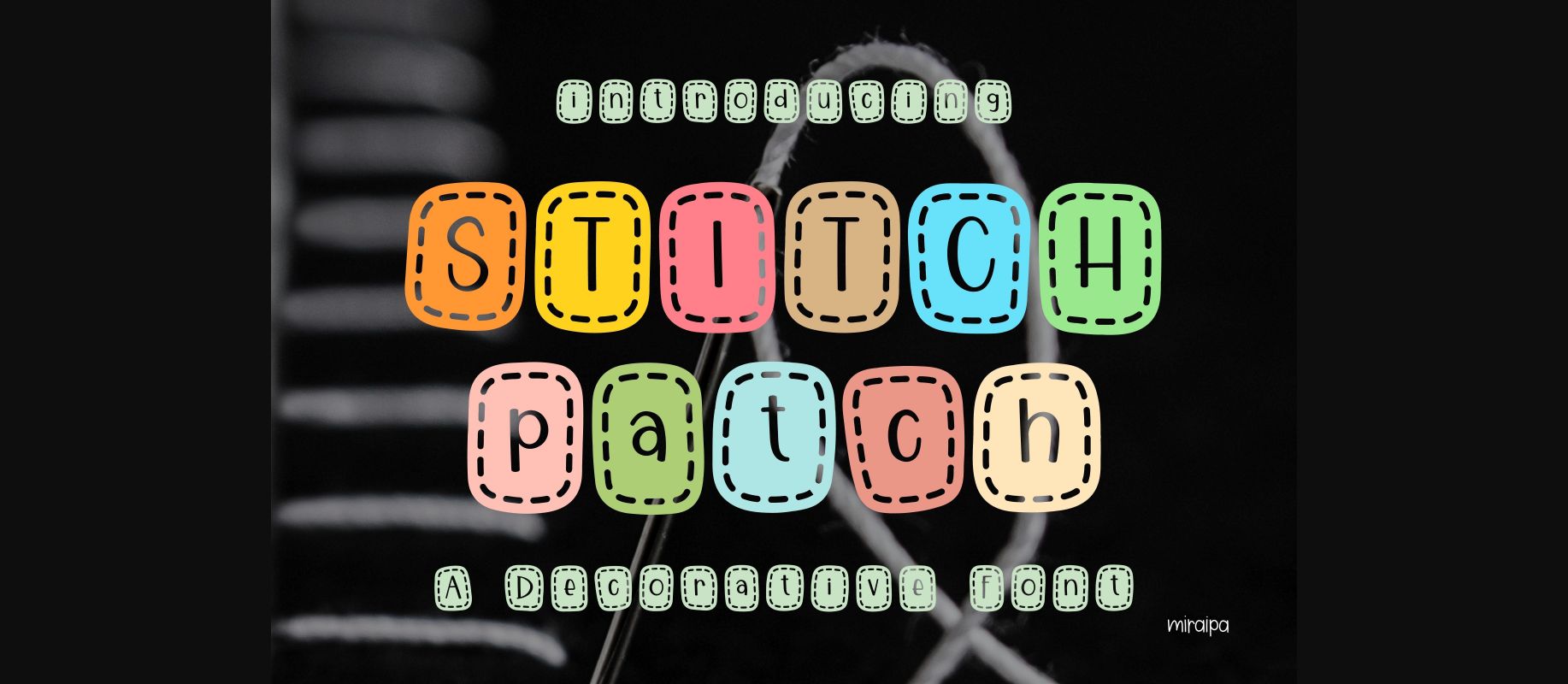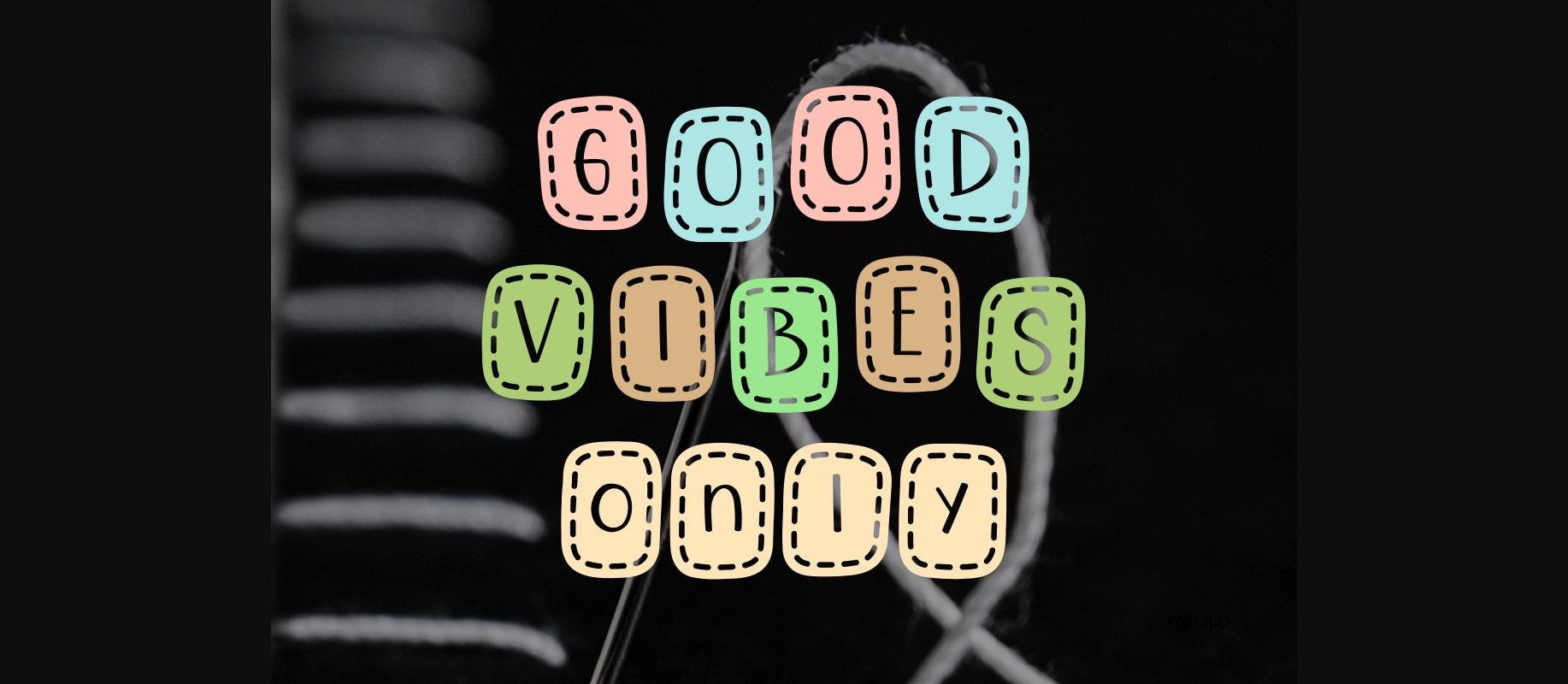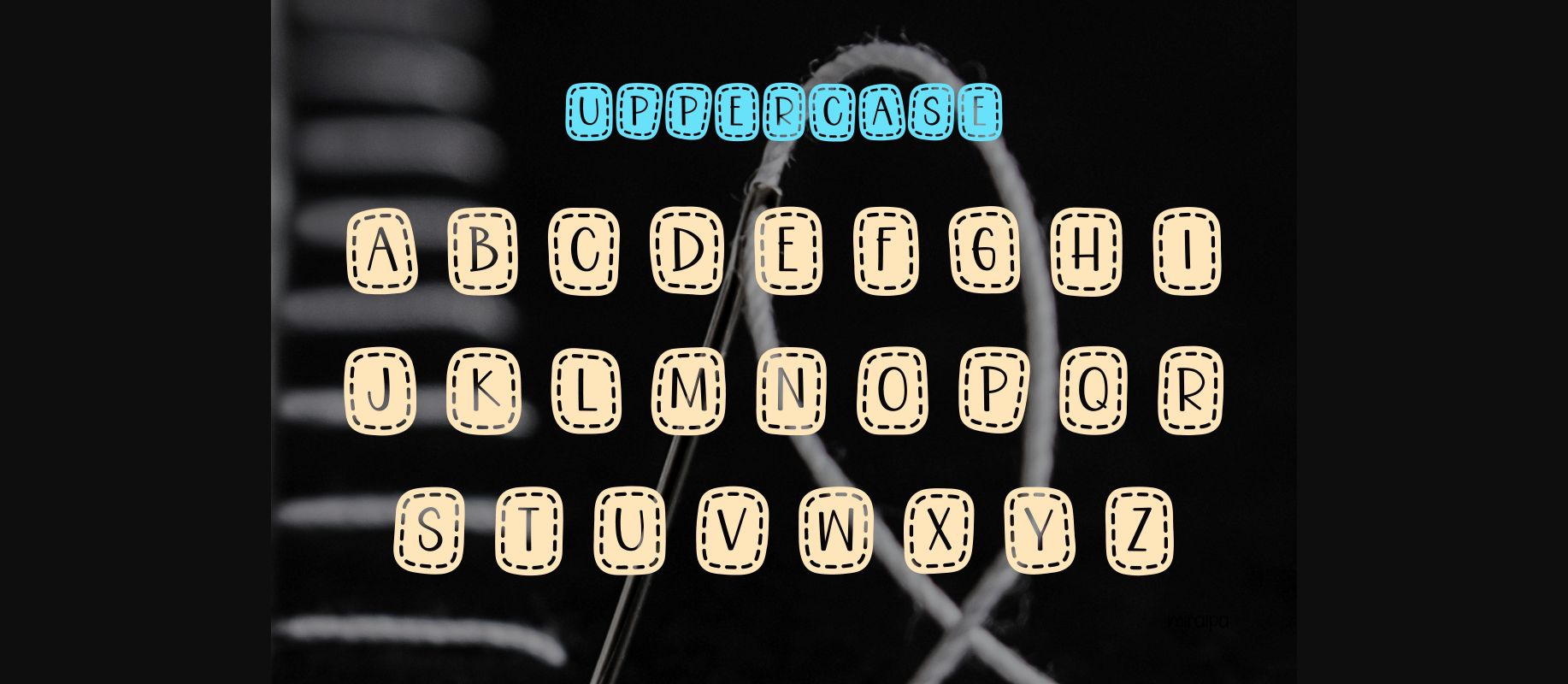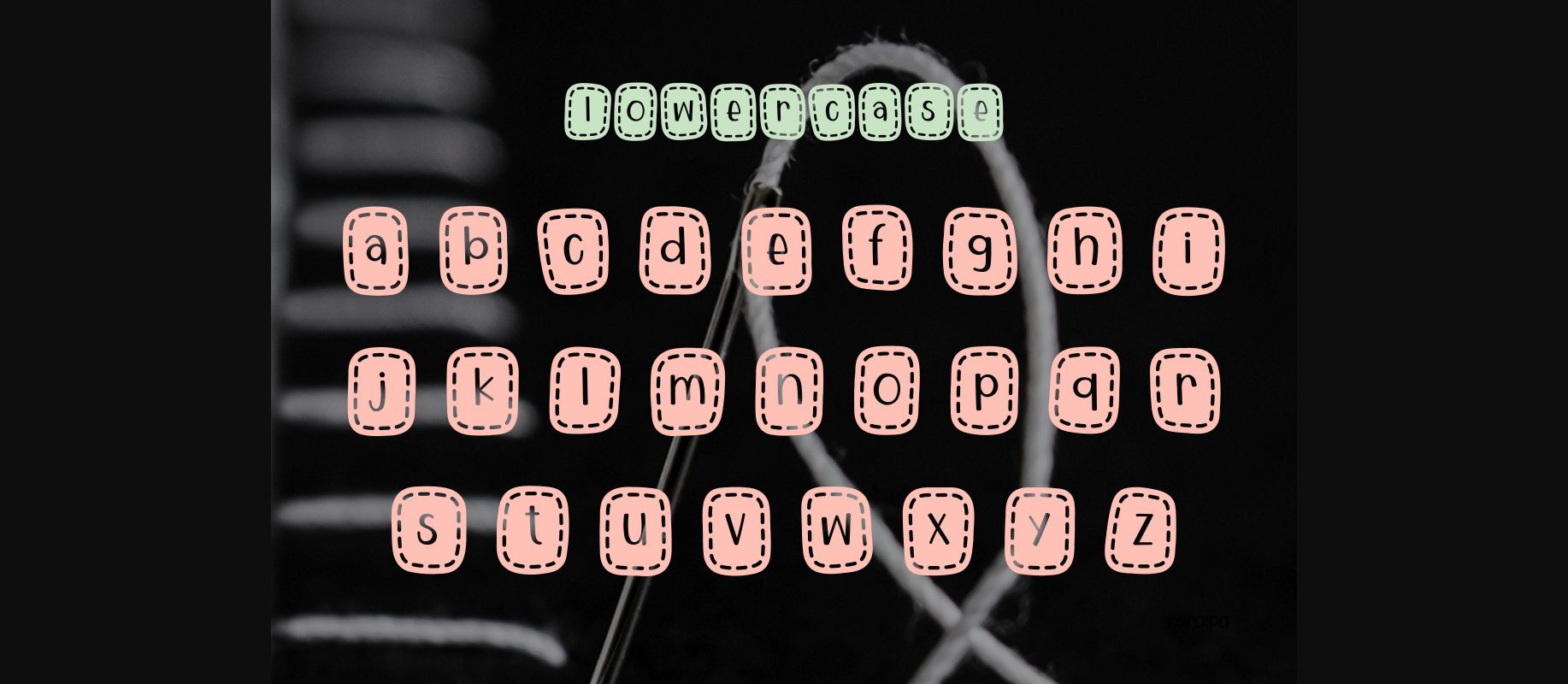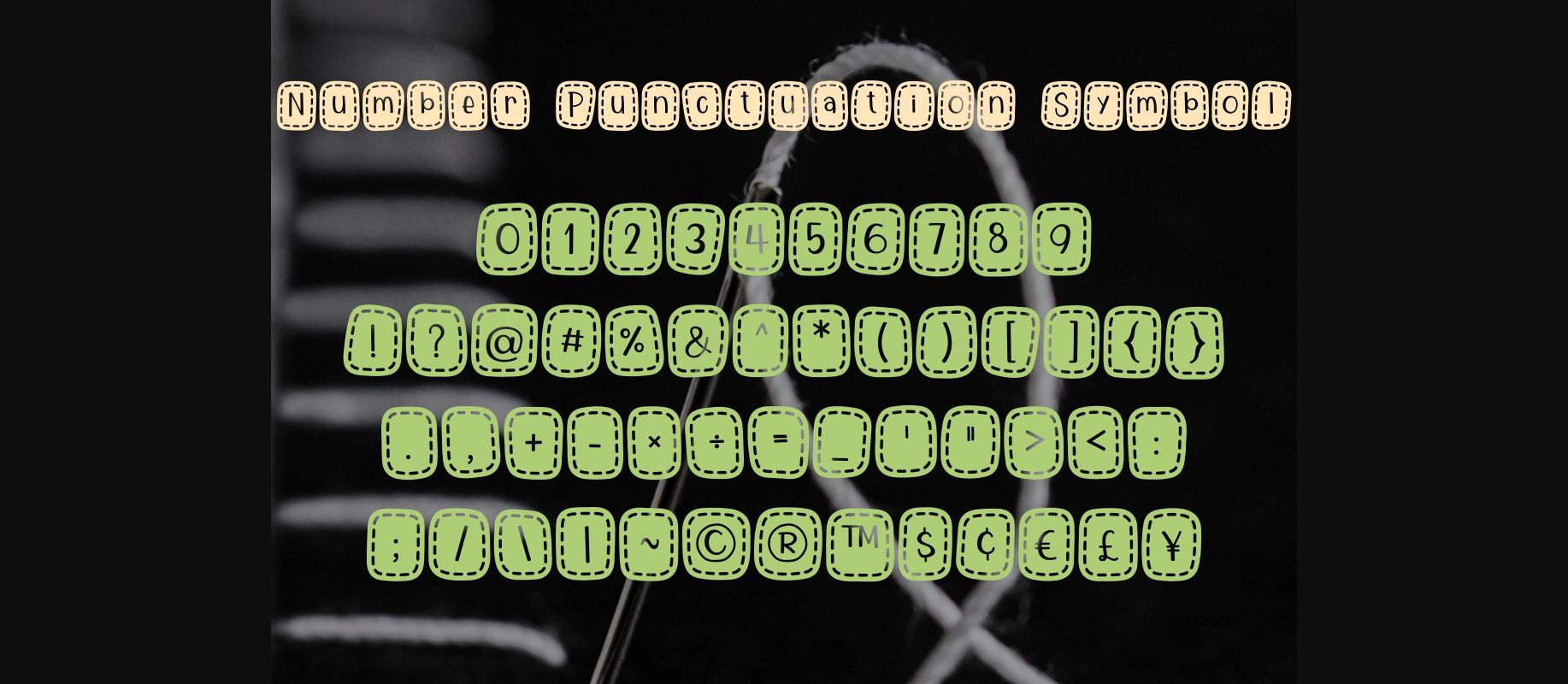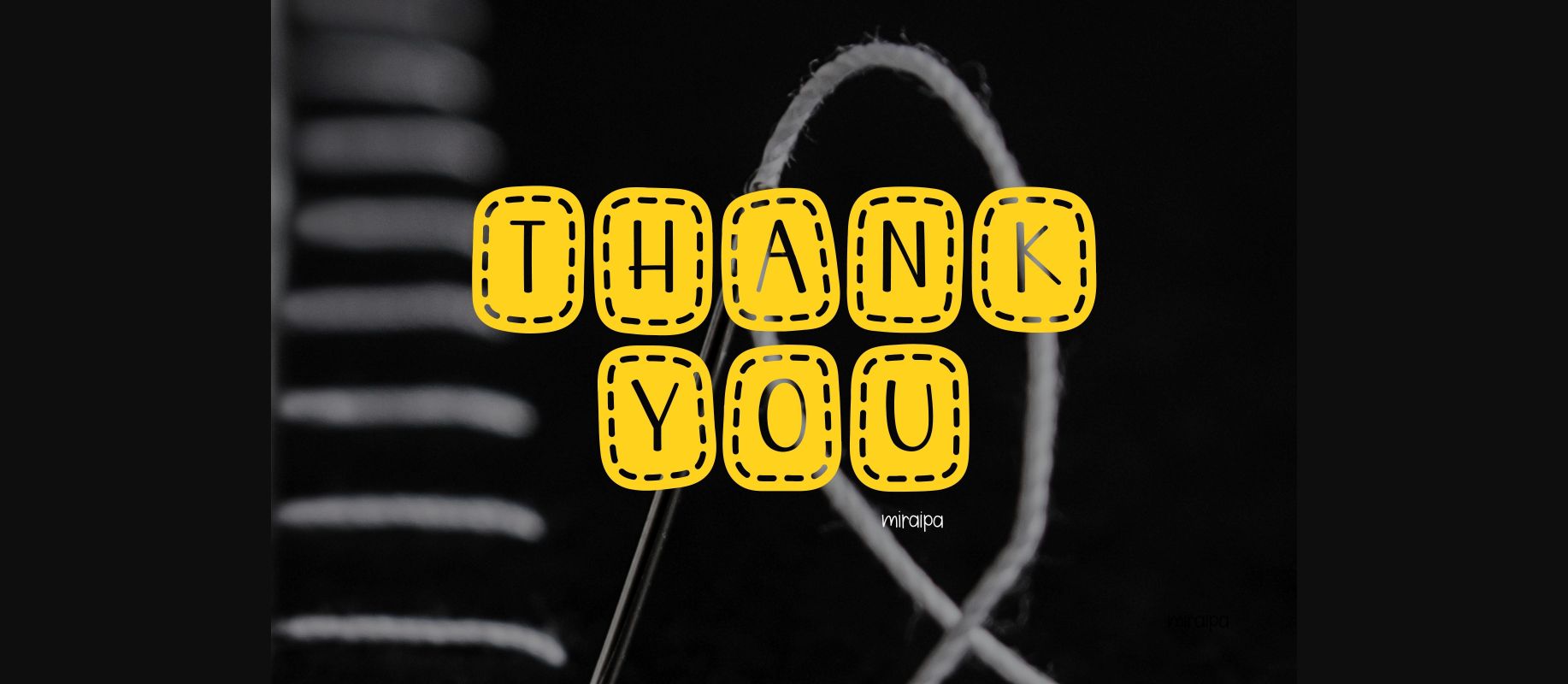
Stitch Patch Font
About Stitch Patch Font
Stitch Patch is a decorative font designed in a friendly and playful style. Add it now to your fonts library, and it will bring any of your DIY projects to life.